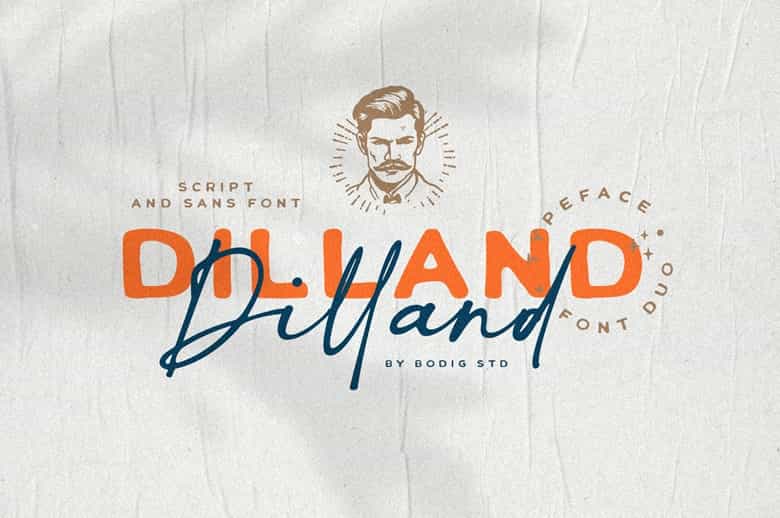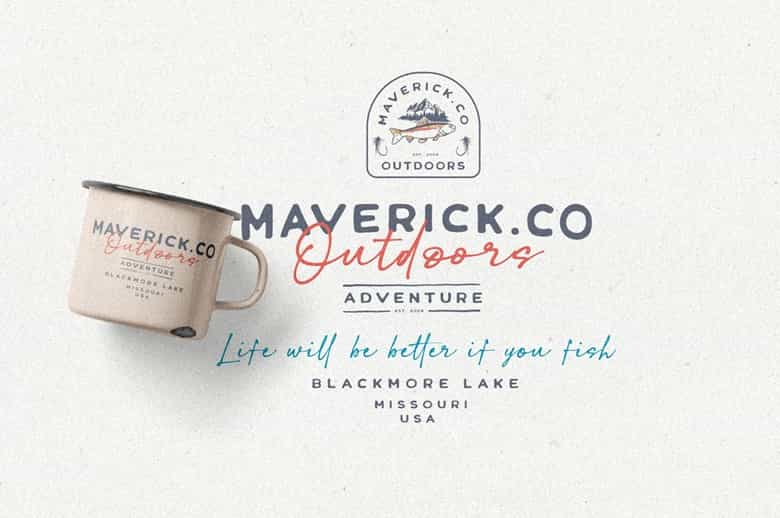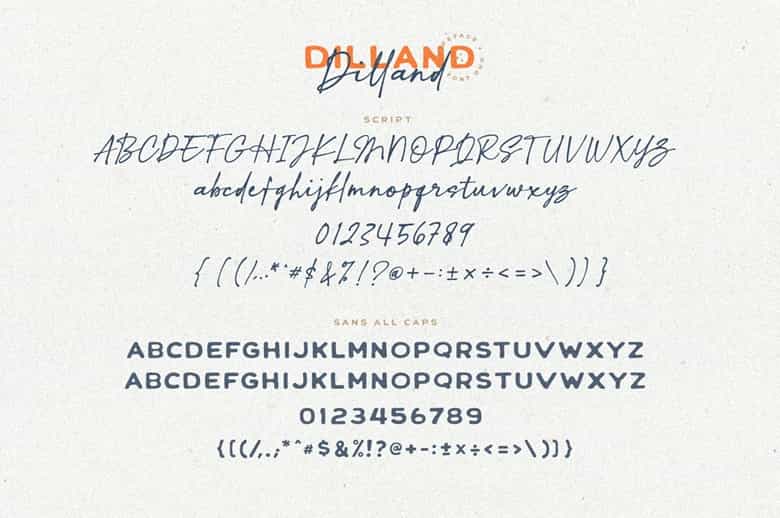
Dilland is a font duo script and sans serif with exquisite letters organic font with natural vibes this font is great for project that requires cursive writing and natural authentic look to it makes it perfect for adding that classy touch to your projects.